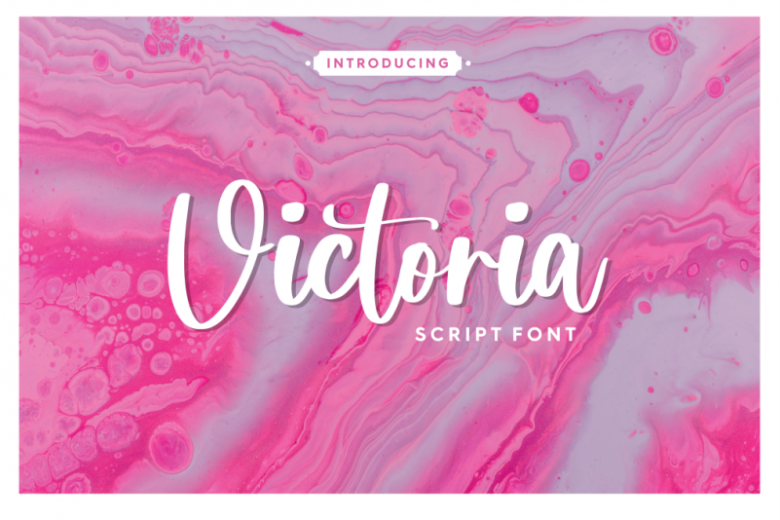
Victoria Script Font
Proudly Present, Victoria Font.
Victoria is a modern script font.
Victoria is perfect for product packaging, branding project, megazine, social media, or just used to express words above the background.